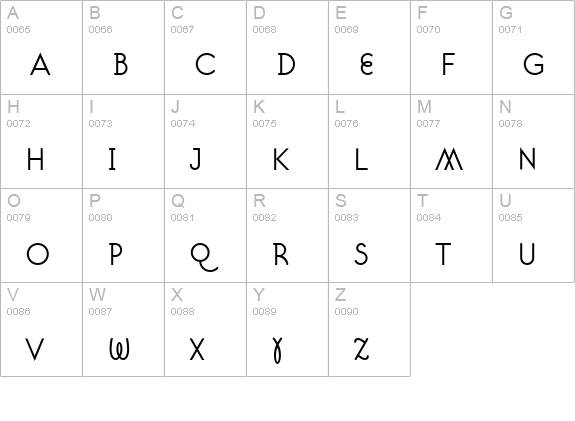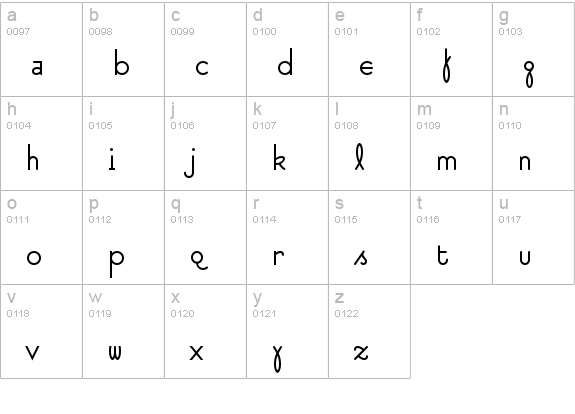
Suburban-Light is a refined, elegant variant in the Suburban typeface family \xE2\x80\x94 well suited to elegant body text, refined sub-headings, and luxury branding.
Suburban-Light font is a modern and sleek typeface that exudes sophistication and elegance. With its clean lines and subtle curves, this font is perfect for a wide range of design projects, from branding to editorial. The light weight of Suburban-Light adds a touch of delicacy and refinement to any text, making it a versatile choice for both digital and print applications. What's even better is that Suburban-Light font is available for free download at FontsMarket.com. Yes, you read that right - this high-quality font can be yours at no cost, allowing you to elevate your designs without breaking the bank. So why wait? Head over to FontsMarket.com today and start using Suburban-Light font to bring a touch of sophistication to your projects.